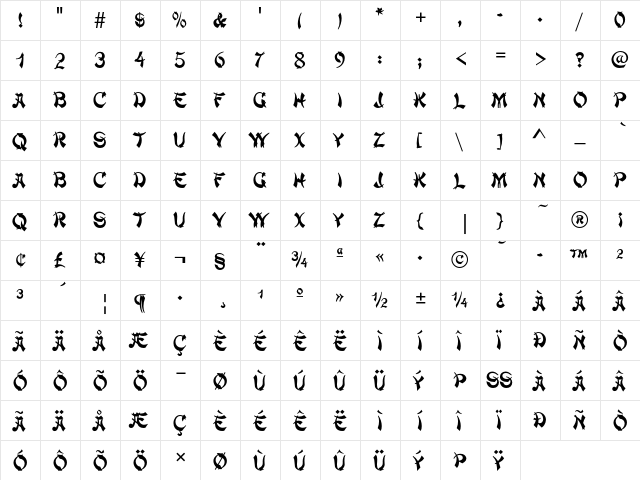
Mandarin D Regular Font Preview
Mandarin D Regular
Design Context for Mandarin D Typeface
Mandarin D is a composed and adaptable typeface that performs quietly and consistently across a wide range of design contexts.